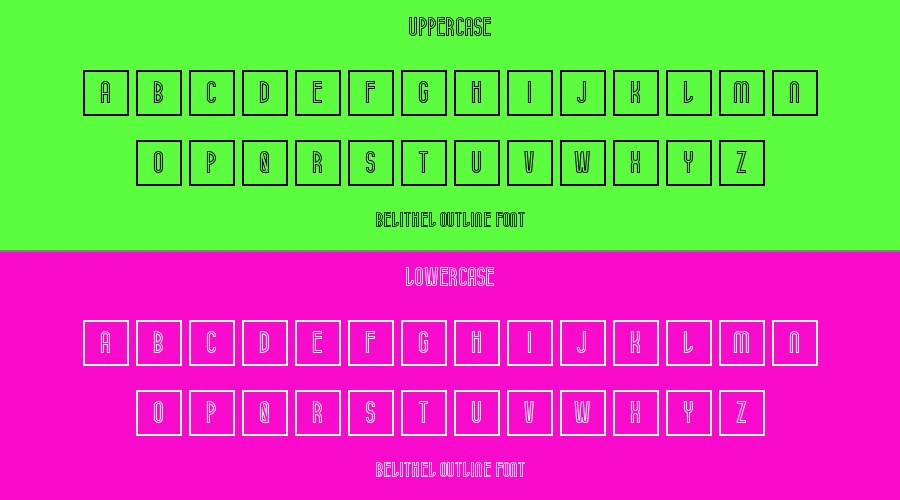
About Belithel Outline Font
Designed with precision, Belithel Outline Font merges consistent rhythm with emotional resonance in every character. This versatility makes it particularly effective for government publications, where consistency and consumer connection directly impact communication quality. Each letterform demonstrates meticulous craftsmanship.
Technical excellence shines through elements like harmonious shapes and period-specific forms, enhancing typographic versatility. In display applications settings, Belithel Outline Font proves its worth through superior versatility. The thoughtful execution of joint detail and design lineage ensures professional results.
Belithel Outline Font |